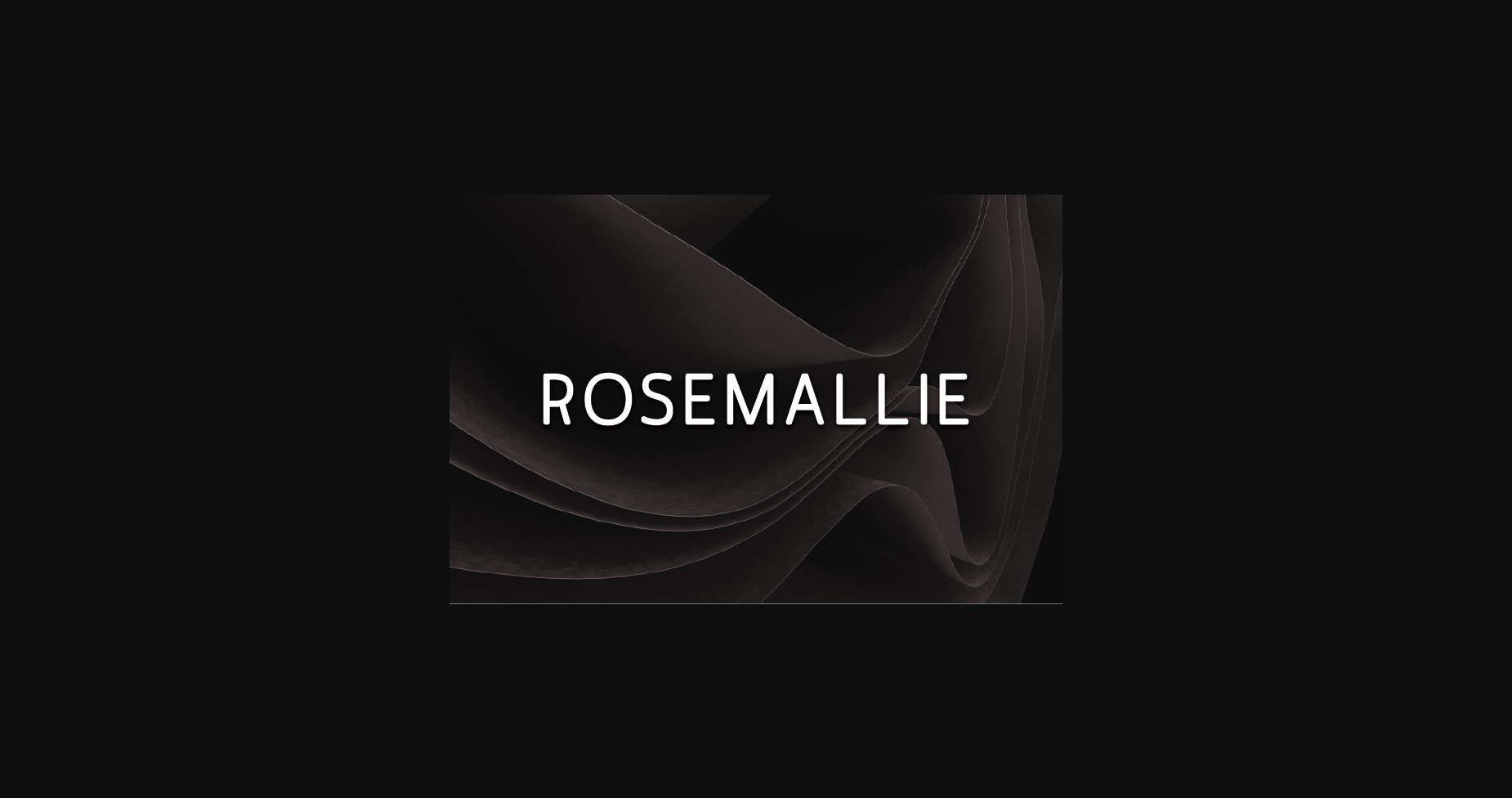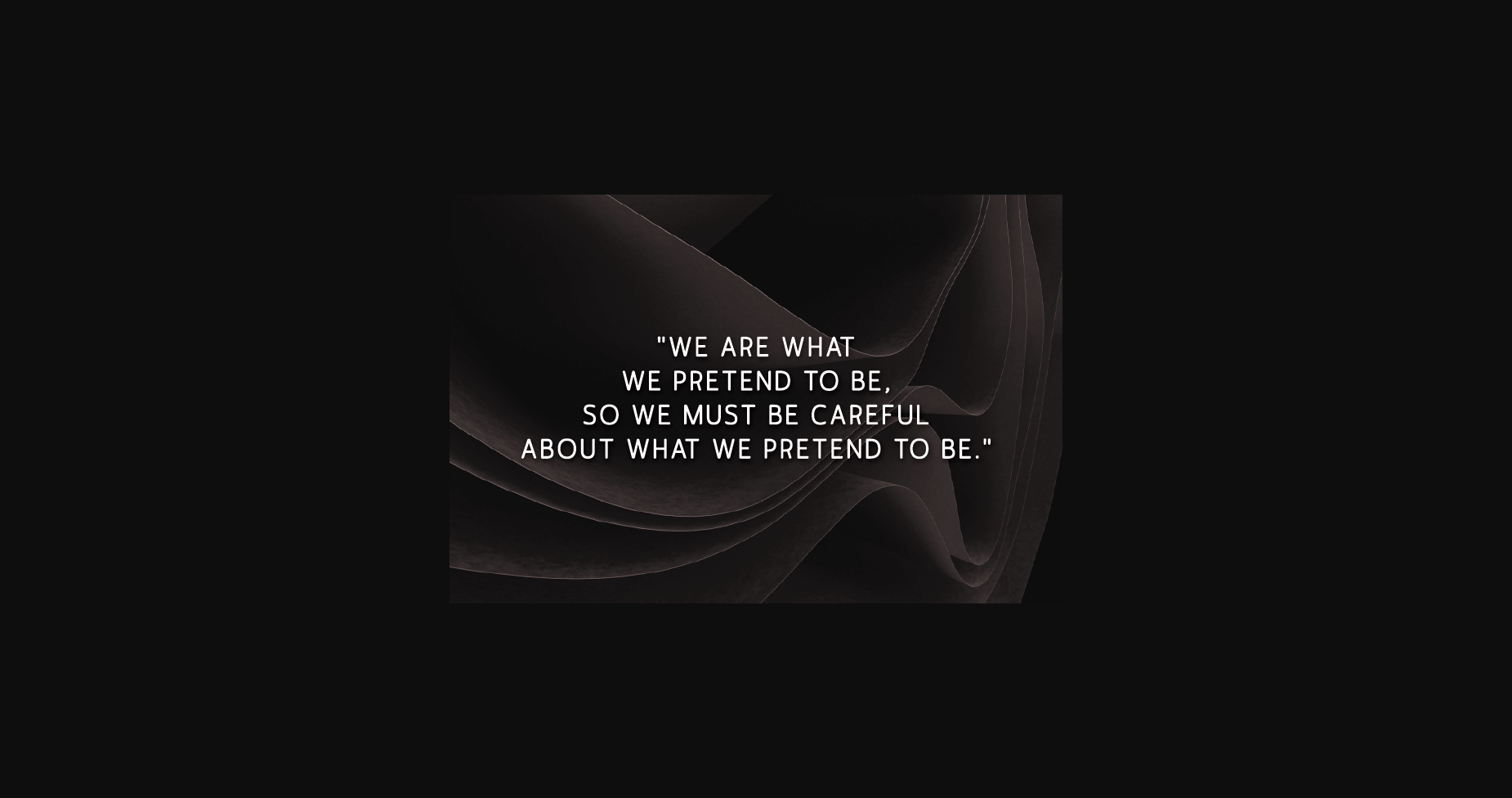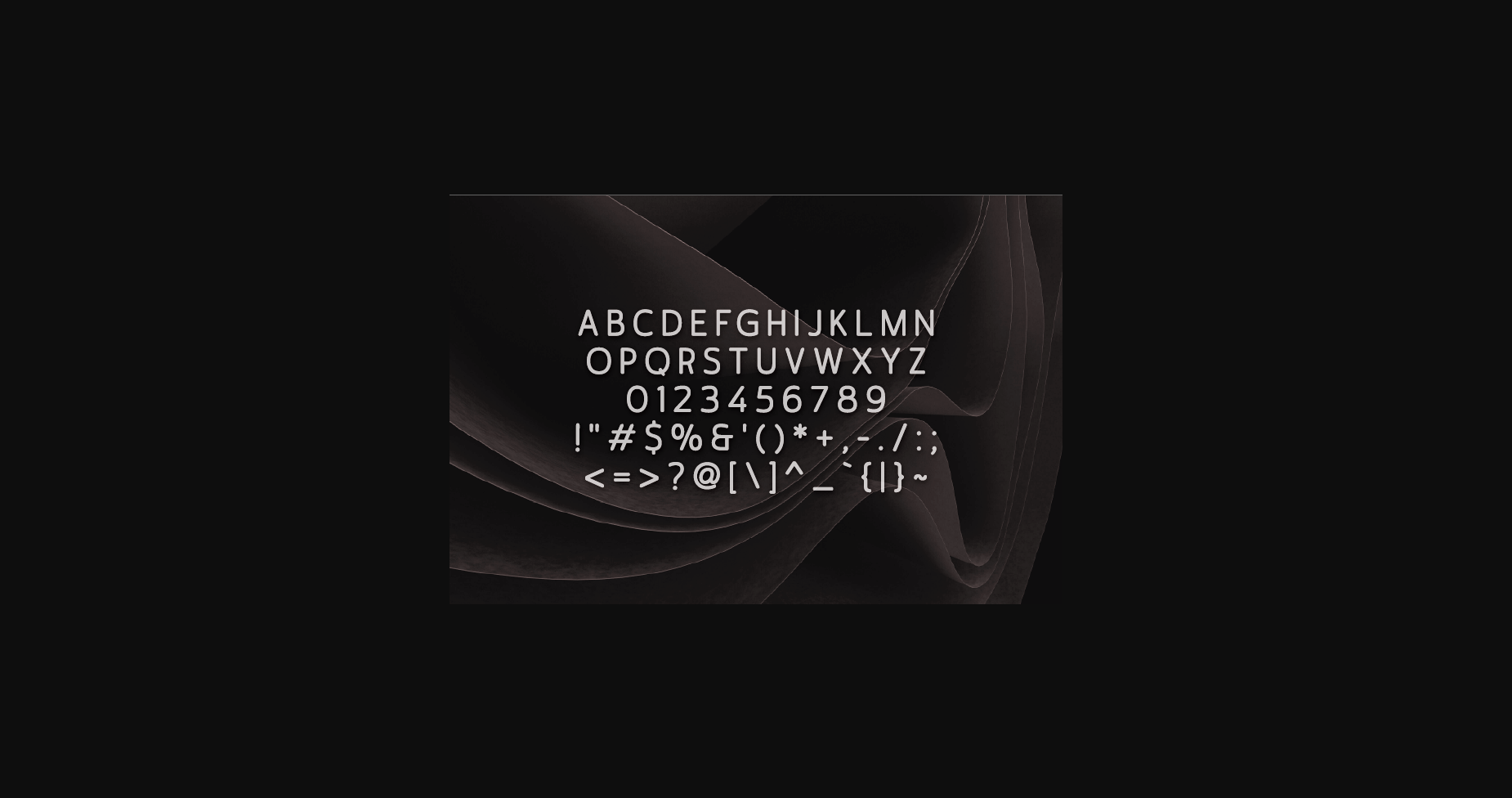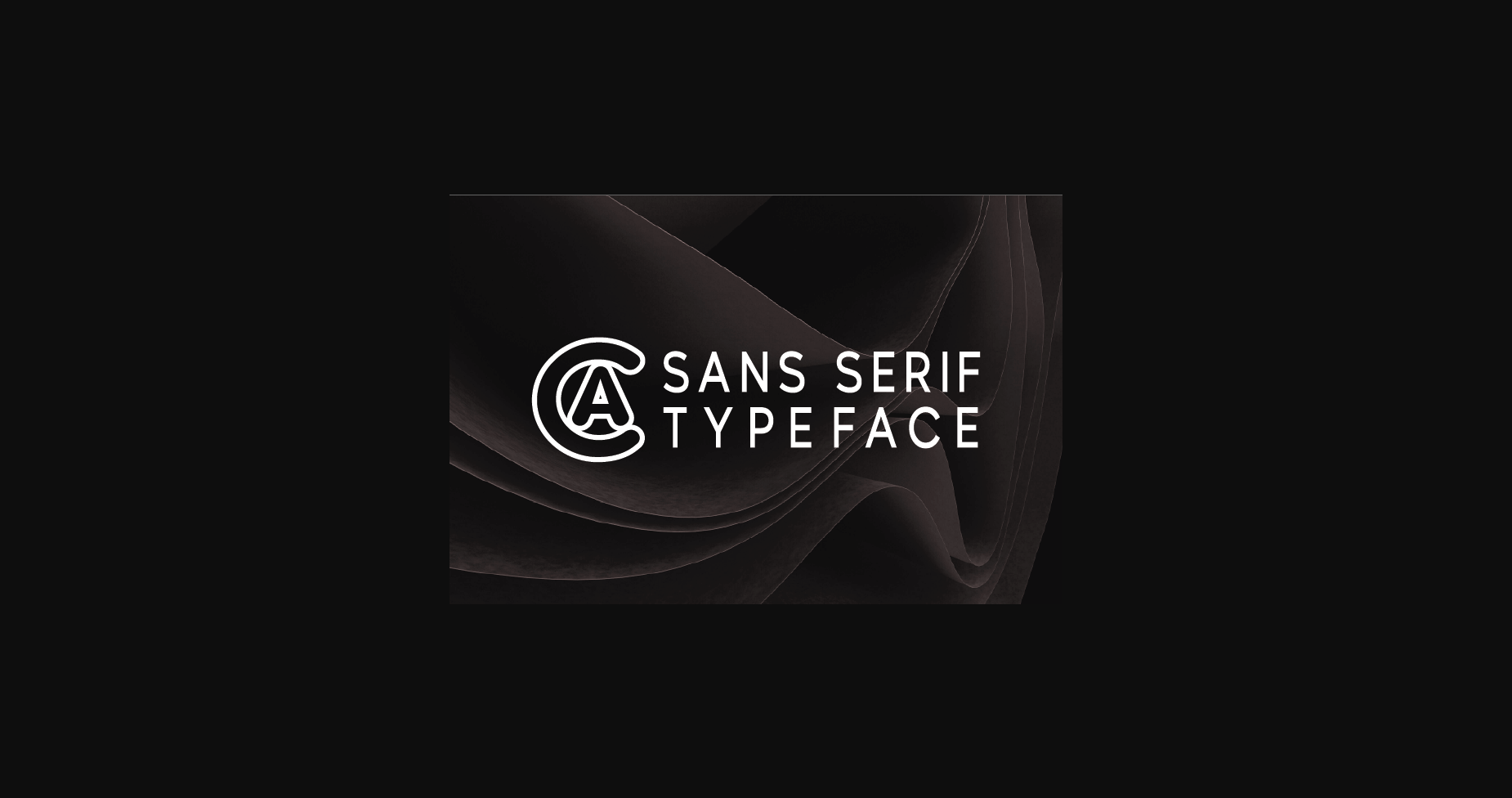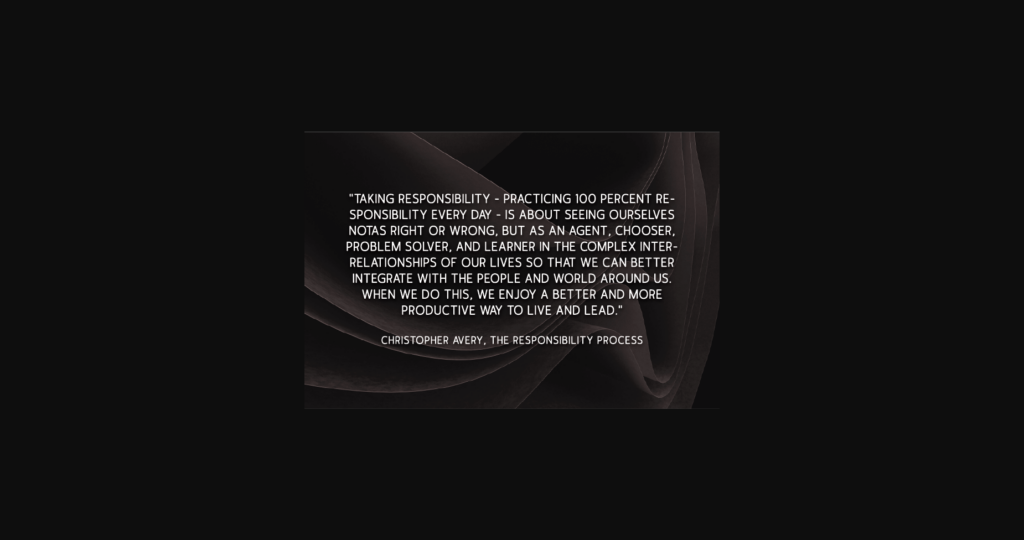
HomeSans Serif FontsRosemallie Font Sans Serif Fonts Rosemallie Font FacebookXPinterestWhatsApp 1 of 7 ... Rosemallie Font Poster 2... Rosemallie Font Poster 3... Rosemallie Font Poster 4... Rosemallie Font Poster 5... Rosemallie Font Poster 6... Rosemallie Font Poster 7... About Rosemallie Font Rosemallie is a modern and classy sans serif typeface. It is extremely versatile, perfect for logos, weddings, invitations, quotes, advertisements, print, magazines, and more! DOWNLOAD NOW People also explored Velvet Hammer Cantikun Favorite Font Otnair Font Autumn Sunset Font Clairdelune Font Triangel Font Zweetie Curliecue Font Cloudy Font 264 0 TagsRosemallie Font Previous articleConetto FontNext articleStromlot Font LEAVE A REPLY Cancel reply Comment: Please enter your comment! Name:* Please enter your name here Email:* You have entered an incorrect email address! Please enter your email address here Website: Save my name, email, and website in this browser for the next time I comment. Personal Use Free Beloved Script Personal Use Free Read more about this font Hello Sister Personal Use Free Read more about this font Super Bubbly Font Personal Use Free Read more about this font Baby Love Personal Use Free Read more about this font BLOG How to Cut Any Font on Cricut: Convert a Font to SVG (Free) Turn any font into a clean SVG so it cuts crisp on Cricut - a quick 3-step workflow using a free font-to-SVG tool. Top 10 Handwritten Fonts That Elevate Your Designs 5 Fonts That Will Dominate Design Trends in 2026 The 10 Best Handwriting Fonts to Add Personality to Your Designs